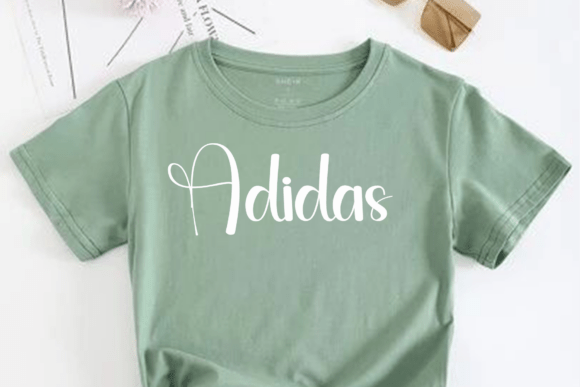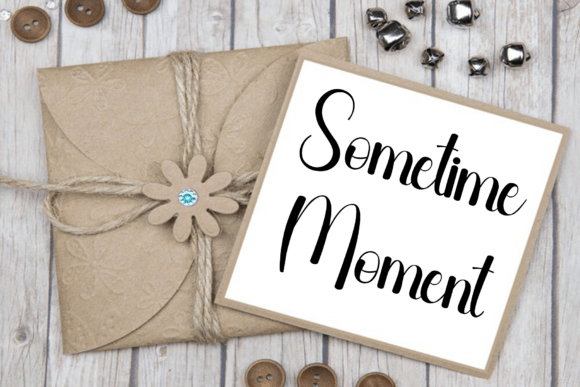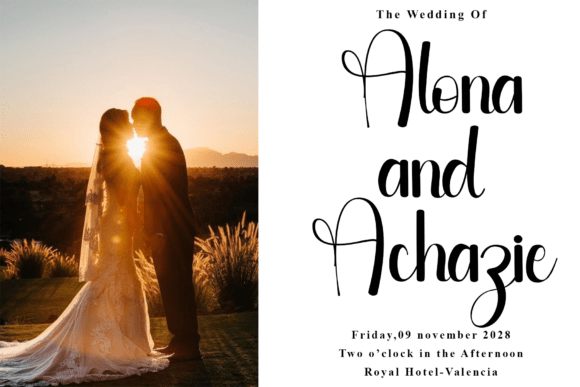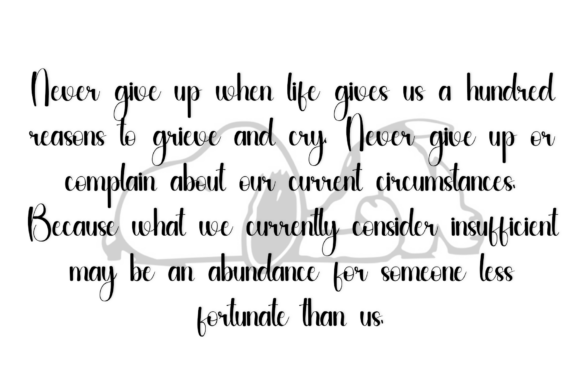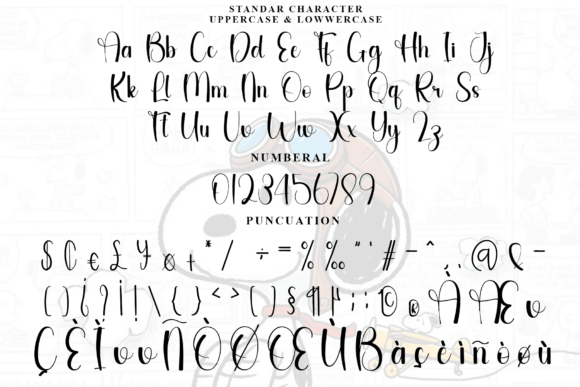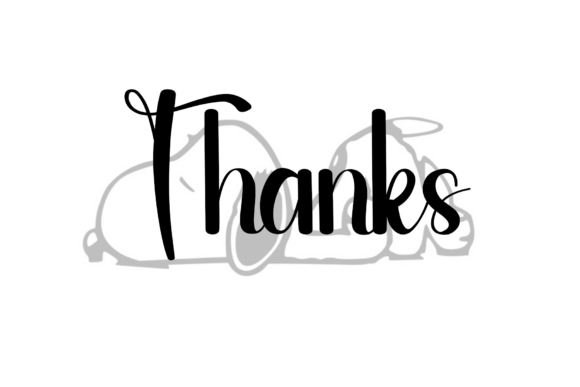
Introduction to Shnoopy Font
As designers, we’ve all been there – staring at a blank canvas, trying to find the perfect font to bring our creative project to life. It’s the moment of truth when the entire design comes together, and the right typography can make all the difference. For those seeking a unique, high-quality font that exudes a sense of adventure and freedom, look no further than the Shnoopy Font.
Part of the ‘Unique and Professional’ collection, this stylish handwritten font is a valuable design resource for any creative project. Its well-balanced proportions ensure it remains impactful even in busy designs, making it perfect for outdoor lifestyle branding, organic product packaging, and travel-themed graphics.
Whether you’re working on a free download or a paid project, the Shnoopy Font is an excellent choice for designers who want to add a touch of handmade elegance to their designs. With its transparent background and organic charm, this font is sure to elevate your designs and leave a lasting impression on your audience.
Key Features of Shnoopy Font
- Unique and playful design ideal for creative projects and design resources.
- Comes in a high-quality, transparent background design, allowing for versatility in use.
- Each font character is designed with precision, ensuring a crisp and clear appearance at any resolution.
- Perfect for use in digital design, including graphics, logos, and other visual elements, thanks to its high-resolution capabilities.
- Includes a range of font sizes and styles, allowing designers to customize their creative project to suit their needs.
Honest Review: Shnoopy Font
I recently had the chance to work with the Shnoopy Font, and I must say it’s been a delightful experience. This free download has been a game-changer for my creative project, providing a unique and quirky touch that sets my design apart from the rest.
- ✨ High-quality design that’s perfect for adding a playful touch to your design
- ✨ Transparent background makes it easy to use in a variety of design scenarios
- ✨ Great for designers looking for a fun and creative way to add some personality to their design
However, I do have a few concerns:
- ⚠️ Limited character set, which may be a drawback for designers who need to use it for extensive text-based content
- ⚠️ Not suitable for corporate or formal designs, as it may come across as too playful
Overall, I’m impressed with the Shnoopy Font. It’s a fantastic design resource that’s perfect for creative projects where you want to add a bit of whimsy and personality. While it may have its limitations, it’s definitely worth considering for your next design project.
Tips for Getting the Most Out of Shnoopy Font
For the best results, use the Shnoopy Font in conjunction with other high-quality design resources. Experiment with different font sizes, colors, and alignments to create unique and engaging designs.
Common Use Cases for Shnoopy Font
The Shnoopy Font is perfect for a variety of creative projects, including social media graphics, marketing materials, and educational resources. Its transparent background and high-quality design make it an ideal choice for designers looking to add a unique touch to their work.